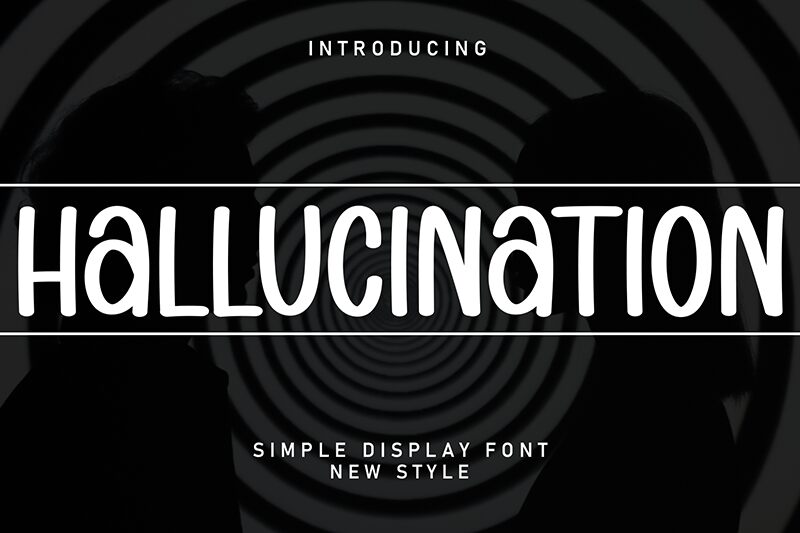
Hallucination
Hallucination font by Andi Moz captures a whimsical and artistic flair with its condensed handwritten style. This font echoes a retro-inspired, hand-drawn feel that adds casual charm and unique character to any design it graces.